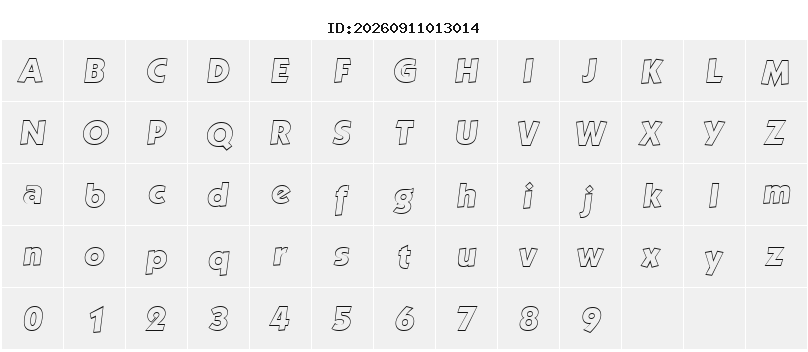
• Font Name: VictorBeckerOutline-ExtraBold
• Font ID: Alts:VictorBeckerOutline-ExtraBold-Italic
• Full Font Name: VictorBeckerOutline-ExtraBold-Italic
• Version: 1.0 Thu May 04 13:30:58 2000
• PostScript Name: VictorBeckerOutline-ExtraBold-Italic
About VictorBeckerOutline-ExtraBold.ttf
VictorBeckerOutline-ExtraBold.ttf is a modern, elegant sans-serif font designed for ultimate readability and visual harmony. Perfect for branding, headlines, web design, and print materials.